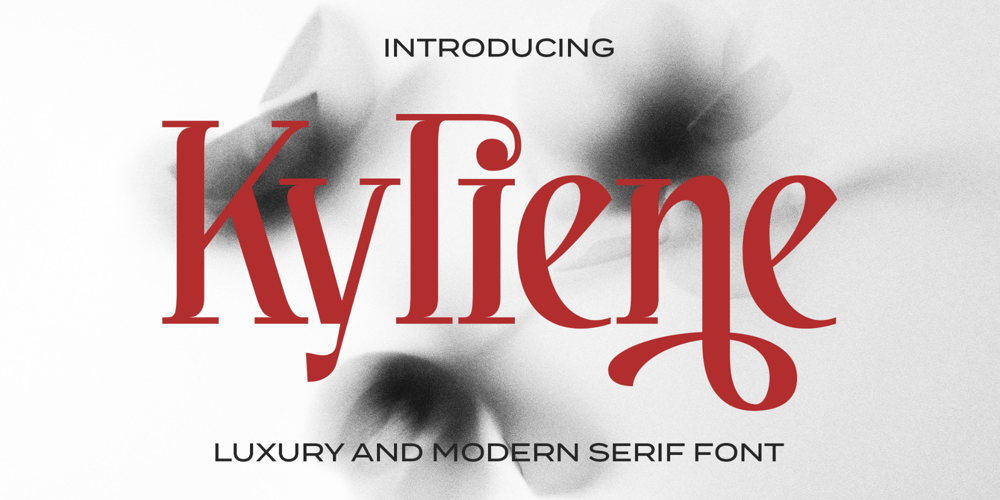
Kyliene Font Family was designed by Heri Imanudin and published by Krafted. Kyliene contains 1 styles and family package options. Showcase modern opulence.Introducing Kyliene – A Luxury and Modern Serif Font.Captivate your audience with this elegant typeface. Its sleek lines and refined curves will add a touch of luxury to any design, from wedding invitations to magazine layouts. Unveil the essence of elegance today!